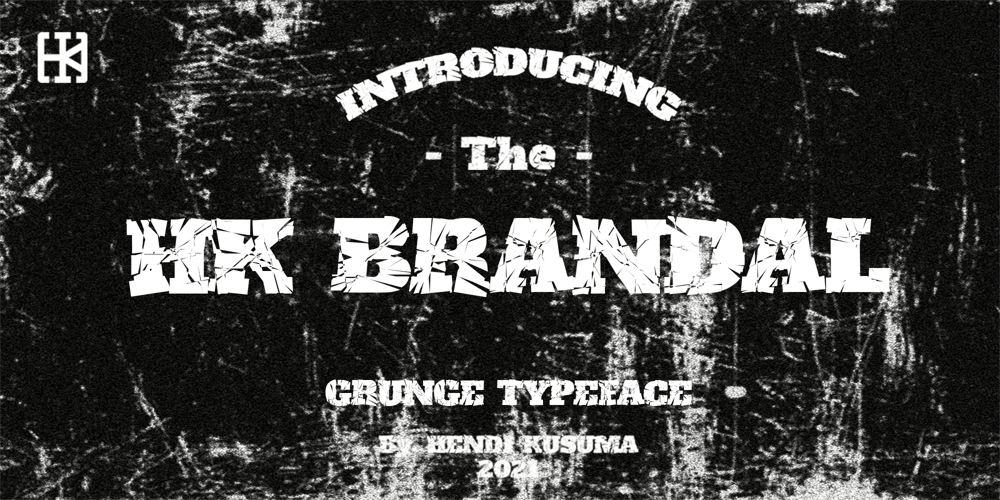
HK Brandal Font Family was designed by Hendi Kusuma and published by HK Studio. HK Brandal contains 1 styles and family package options. HK Brandal was designed by Hendi Kusuma, comes in bold weight. They are all uppercase and lowercase, Brutalism Grunge style typeface with slab based form which were inspired by a number of historical music and subculture movement : grunge, brutalism, roughness.Art is the only place you can do what you like. That’s freedom.